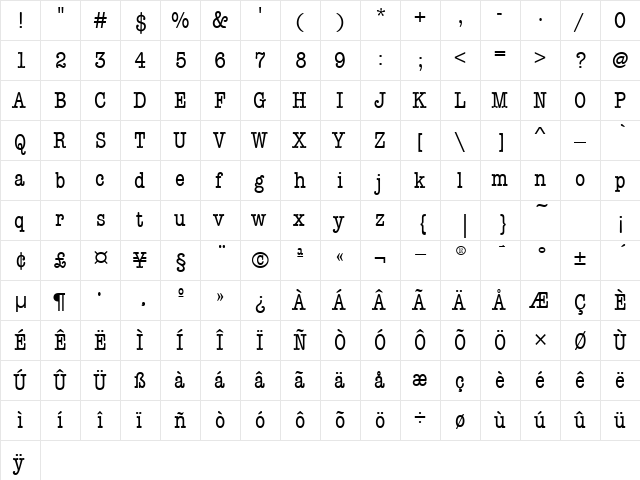
AmTypewriterCdMdITCTT Regular
| Foundry | International Typeface Corporation |
| Designer | Tony Stan/Joel Kaden |
AmTypewriterCdMdITCTT brings the precise, column-aligned rhythm of monospaced typography to designs that value technical clarity and systematic order.
A natural fit for code editors, technical documentation, developer-focused branding, and terminal-inspired UI.
Pro Tip: Pair AmTypewriterCdMdITCTT with a proportional sans for UI contexts where code-style labels and regular body copy need to coexist.